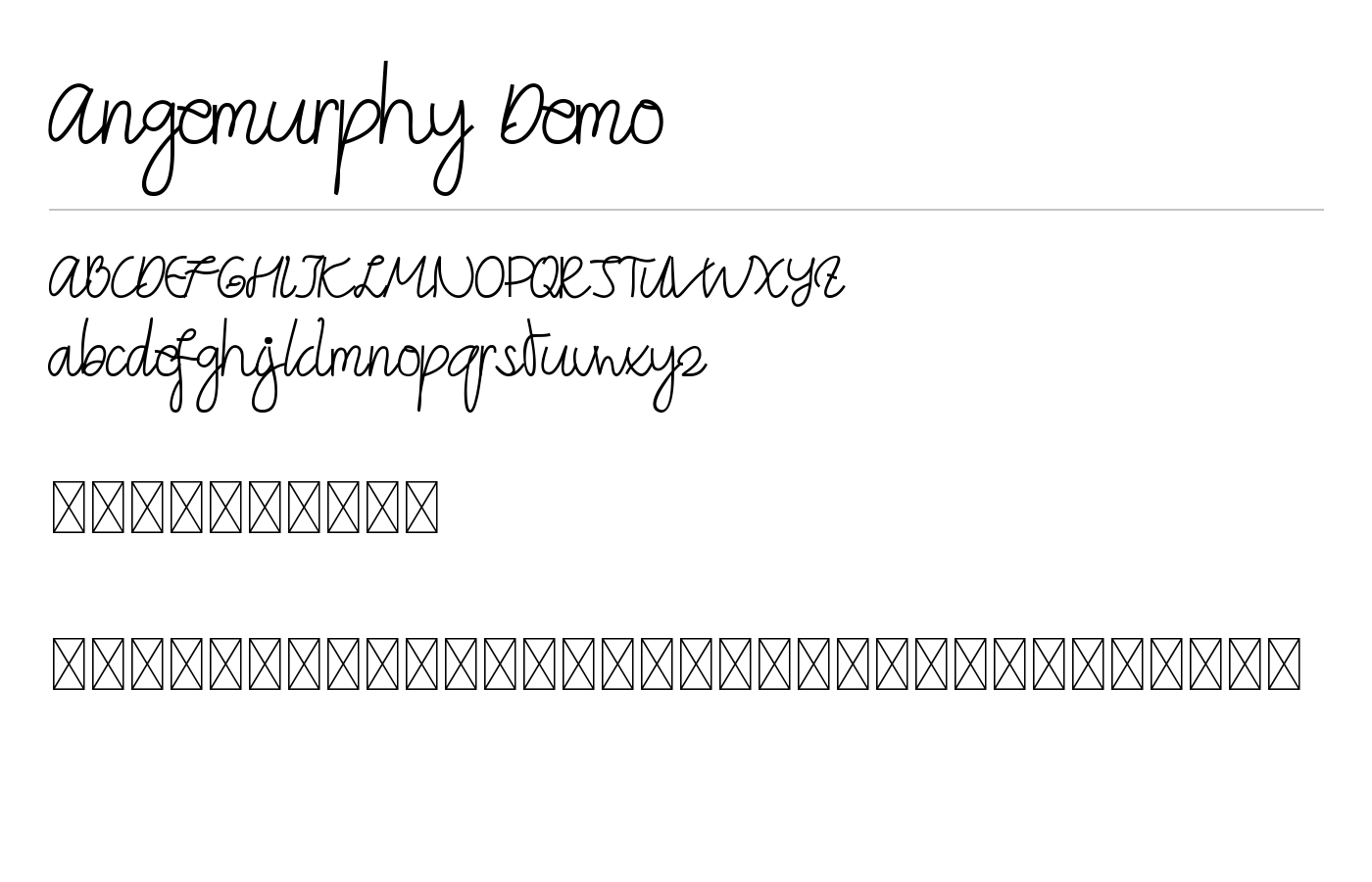
Angemurphy Demo is a delicate, handwritten script font characterized by its thin strokes and slightly tall, narrow letterforms that give it an airy and personal feel. With its casual, playful style and connected letters, it works beautifully for informal branding, greeting cards, and creative projects where a friendly, approachable tone is desired. This font excels in settings that benefit from a hand-crafted touch, adding warmth and charm without overwhelming the design.
Angemurphy Demo Font
About Angemurphy Demo Font
| Font family | Angemurphy Demo Font |
| Designer | Yasri Ainun N & Sarah Suci P |